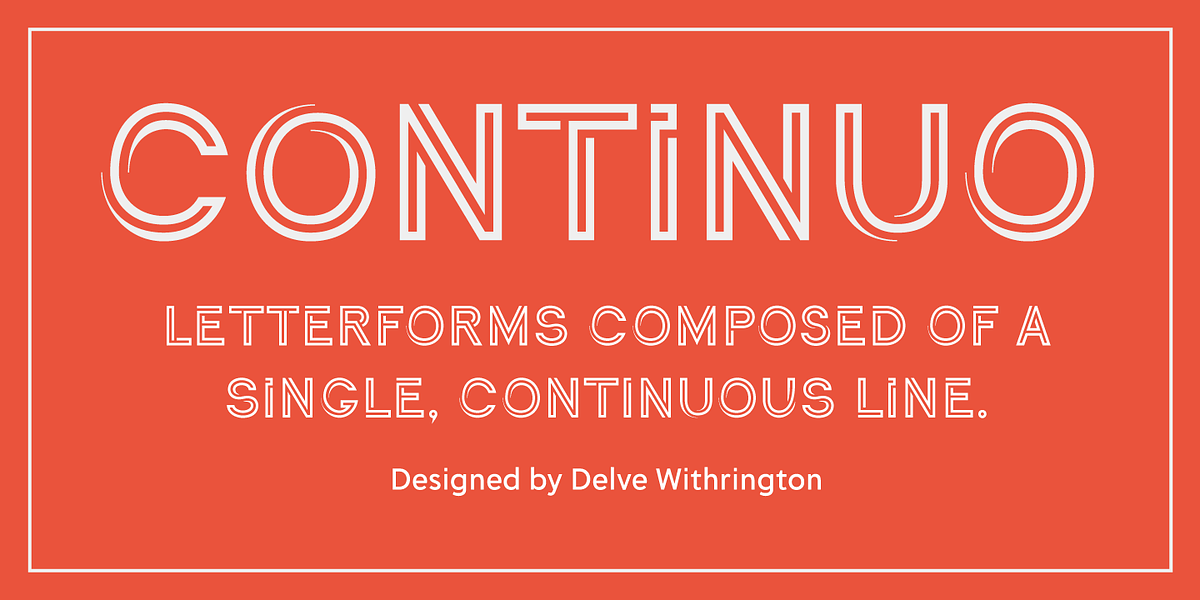
Continuo Font Free Download is a sleek and futuristic display typeface with a unique, continuous line design that creates a modern and minimalist aesthetic. Ideal for tech branding, digital interfaces, logo design, posters, and experimental layouts, Continuo stands out with its innovative letter construction and ultra-modern feel.
Its geometric style and creative character shapes make it a great choice for projects that want to appear cutting-edge and artistic while still maintaining readability.